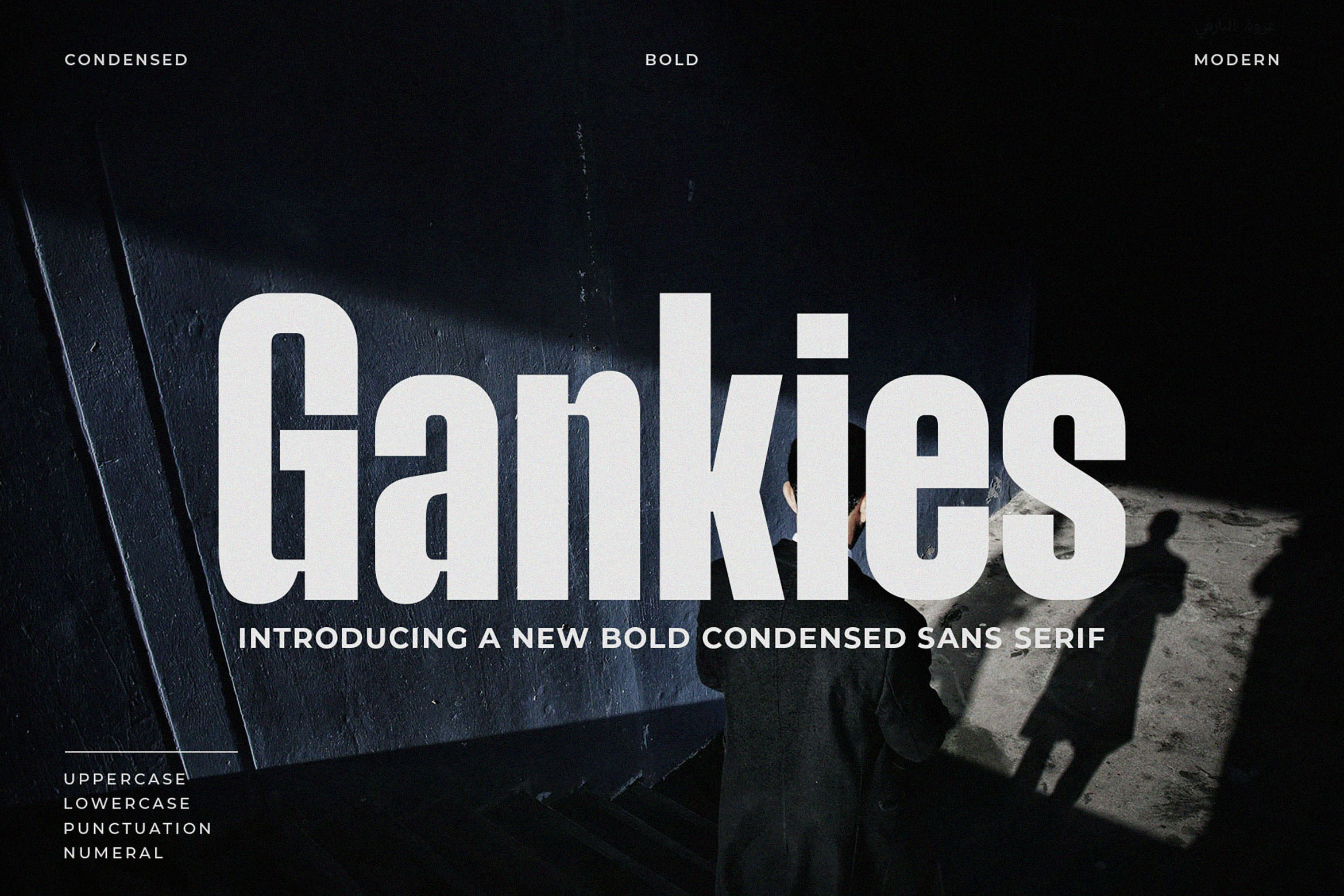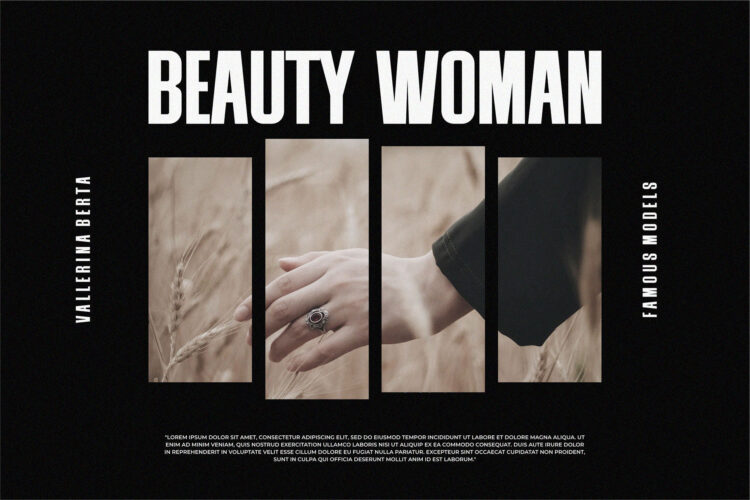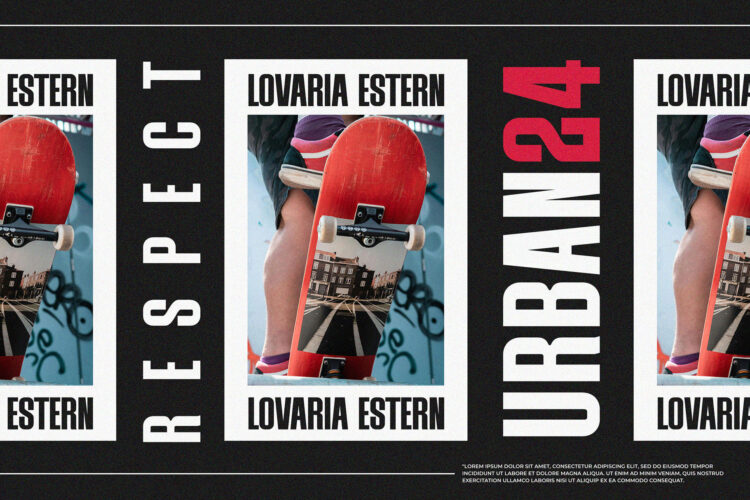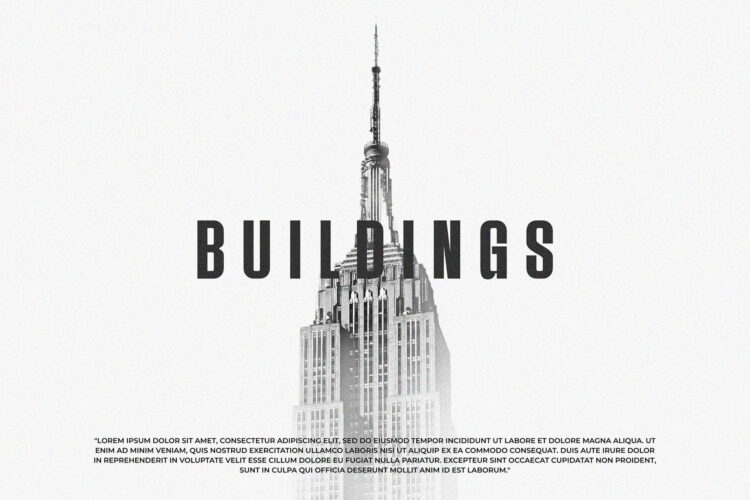
Introducing our new Gankies, modern sans serif font with elegant style this is perfect for branding, logos, invitation, magazines, product packaging and more.
Gankies – Bold Condensed Sans Serif